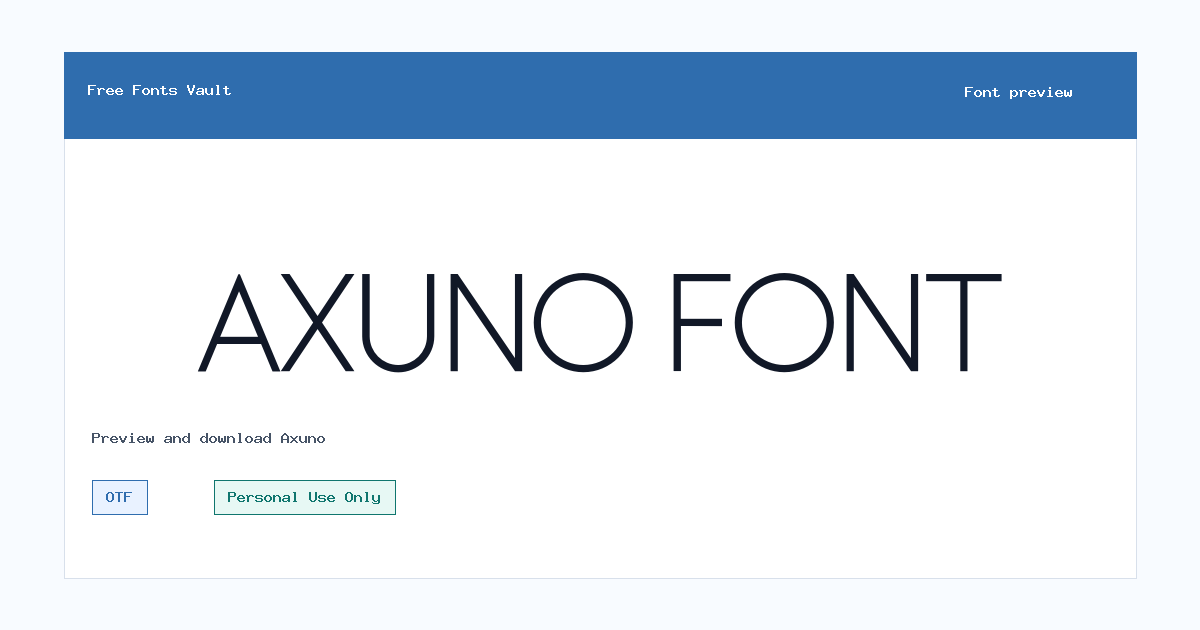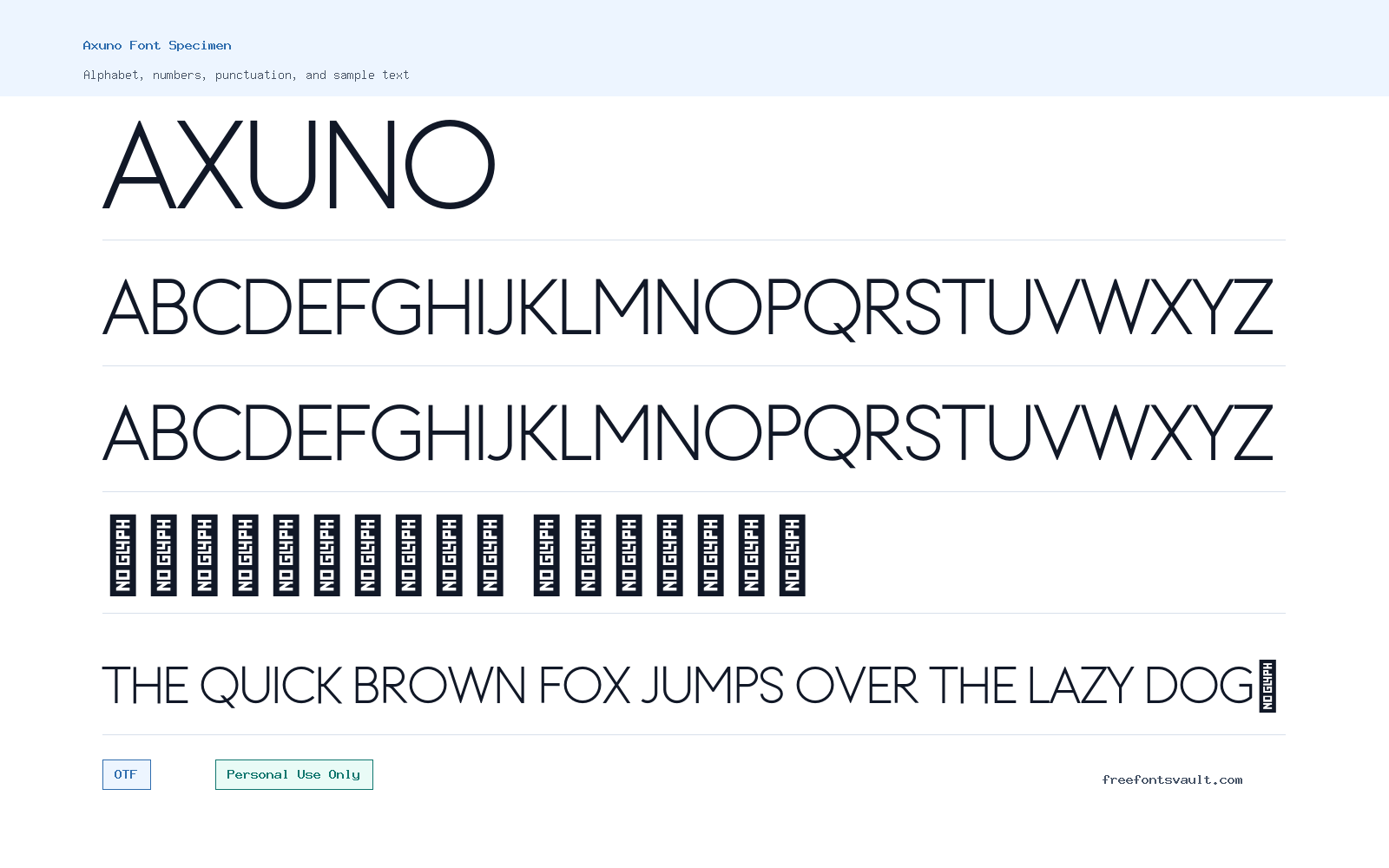
Axuno
Axuno is a clean sans serif font with a regular OTF style that works well when you need simple, modern lettering for personal design projects.
Axuno has a straightforward sans serif look, which makes it a practical choice for short headings, name designs, social graphics, posters, and other display text. The included style is regular weight, so it is easy to test in a wide range of preview sizes before downloading. Its simpler letter shapes can help keep a design neat without pulling attention away from the message.
Use the preview tool to check how Axuno handles your exact words, especially if you plan to use it for titles, logos, thumbnails, or quote images. Try both uppercase and lowercase text, then test spacing with longer phrases. For clean layouts, pair Axuno with a plain serif or a neutral sans serif used at smaller sizes. If your design needs a lot of body copy, check readability carefully first, because many downloaded display fonts are strongest in short text rather than long paragraphs.
- Sans serif style suited to clean personal-use designs
- Normal style with 400 weight
- Simple letterforms for headings, titles, and short text
- Works best when previewed with the exact wording of your project
- Personal posters and quote graphics
- Social media images and thumbnails
- Simple title designs
- Personal branding mockups
- Headers, labels, and short display text
What style of font is Axuno?
Axuno is listed as a sans serif font with a regular, normal-style weight.